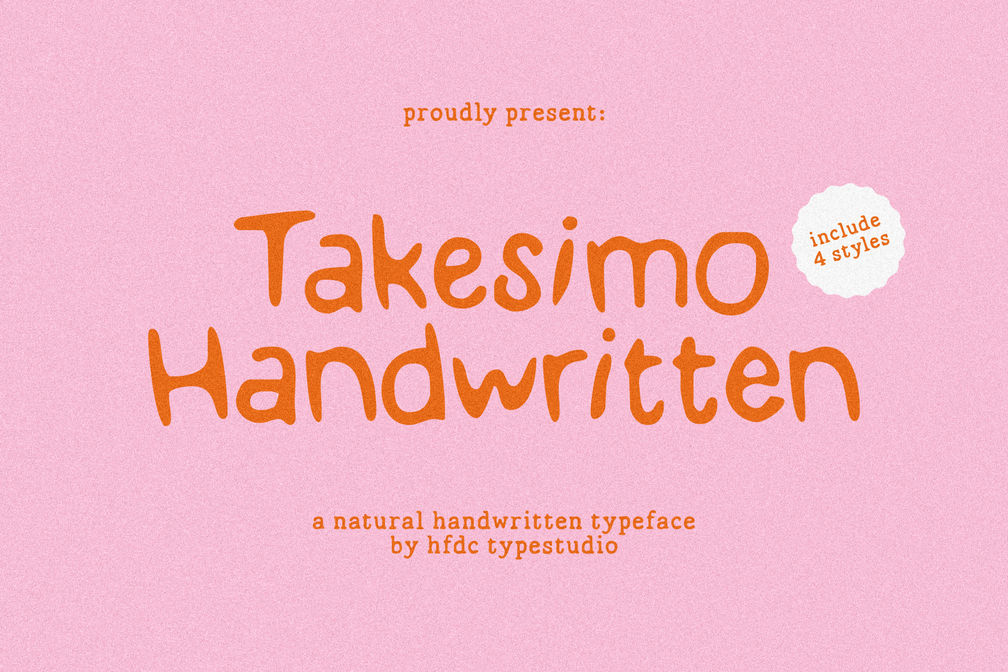
Takesimo Handwritten Ink Press
Takesimo Poster 1 Scaled
Takesimo Handwritten invites you into a world where playful energy meets artistic flair. This unique sans serif font, inspired by ink press artistry, delivers a rough and bouncy feel that makes it perfect for a variety of creative projects. Whether you’re designing a vibrant poster, curating an eye-catching social media graphic, or crafting a memorable logo, Takesimo’s whimsical character set—boasting over 230 glyphs—ensures your message stands out with personality. The delightful mix of ligatures, stylistic alternates, and swashes adds a touch of sophistication to your branding, making it an excellent choice for packaging and postcards as well.
• Include 4 Styles
• Uppercase & Lowercase
• Number
• Punctuation
• Multilingual Support